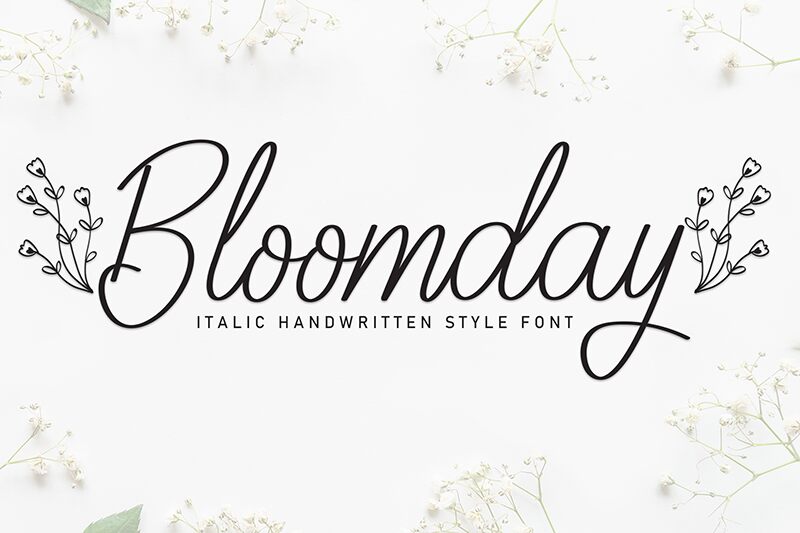
Bloomday
Bloomday font by Andi Moz is a light handwritten free font whose letters are elegant, graceful, and stylish. One of the most distinguished features of this typeface is its cursive script style which plays a role in its elegant appearance. This simply combines the best of script fonts with modern handwriting to make Bloomday your sophisticated solution.
Andi Moz took Bloomday into the world and made it available for free use in branding design projects, packaging designs, magazine covers and issues, logos and typography art among others. Many more options that combine ink on paper or appear on screens can be considered as well!